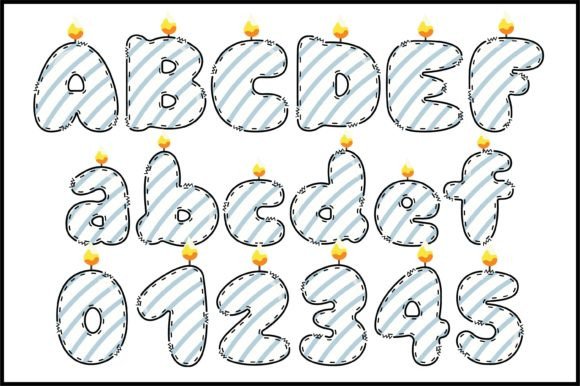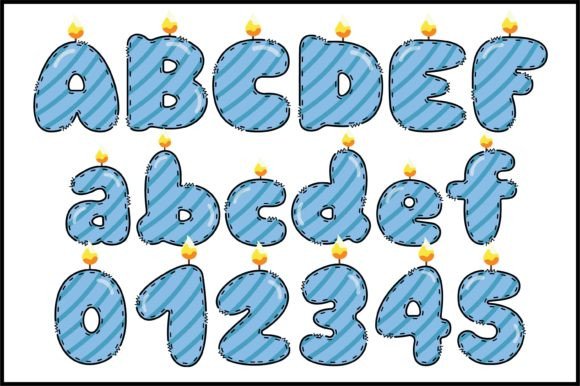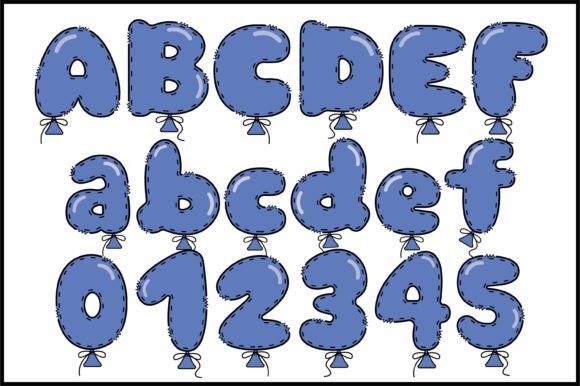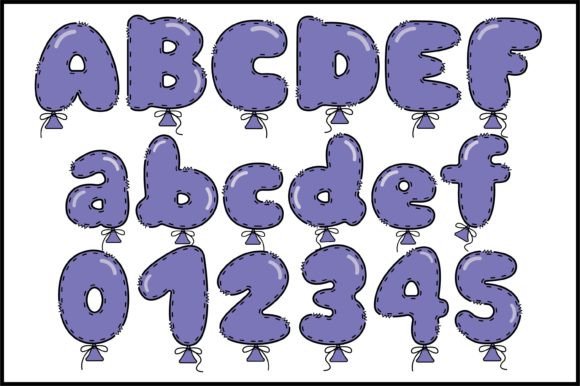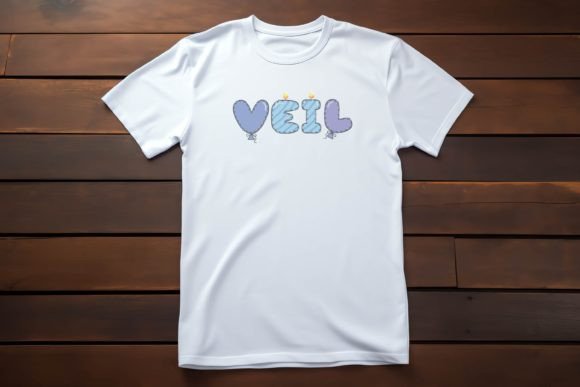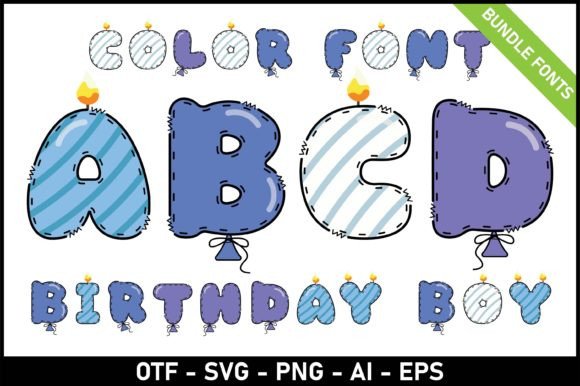
Birthday Boy Font: Adding a Touch of Whimsy to Your Designs
When it comes to creating designs that convey a playful or artistic feel, the right font can make all the difference. One font that has gained popularity in recent years is the Birthday Boy Font. This font is often used in designs that aim to capture the imagination of young audiences, such as children’s books, posters, invitations, greeting cards, and more.
The Characteristics of Birthday Boy Font
Birthday Boy Font is known for its whimsical and playful style, making it perfect for designs that require a touch of fun and creativity. The font features rounded edges, irregular shapes, and a carefree vibe that is sure to capture the attention of young readers. Its unique design elements make it an excellent choice for designs that require a high level of visual appeal.
Uses of Birthday Boy Font
These fonts are often used in designs that aim to convey a playful or artistic feel, such as:
- Children’s books: Whimsical fonts like Birthday Boy Font are perfect for creating engaging and interactive reading experiences for young audiences.
- Posters: Add a touch of fun and creativity to your posters with fonts that are sure to grab attention.
- Invitations: Create memorable invitations for birthday parties, baby showers, and other celebrations with fonts that set the tone for a fun and festive event.
- Greeting cards: Add a personal touch to your greeting cards with fonts that convey a sense of warmth and personality.
Why Choose Birthday Boy Font?
There are several reasons why designers and crafters choose Birthday Boy Font for their projects:
- Playful and artistic feel: The font’s whimsical design elements create a playful and artistic feel that is perfect for designs that require a high level of visual appeal.
- Ease of readability: Despite its playful design, Birthday Boy Font is easy to read, making it perfect for designs that require a high level of legibility.
- Versatility: The font can be used in a variety of designs, from children’s books to posters, invitations, and greeting cards.
Tips for Using Birthday Boy Font
Here are some tips for using Birthday Boy Font in your designs:
- Pair with complementary fonts: Pair Birthday Boy Font with complementary fonts to create visual interest and add depth to your designs.
- Use in moderation: While Birthday Boy Font is perfect for designs that require a playful feel, it’s essential to use it in moderation to avoid overwhelming the reader.
- Experiment with colors: The font’s playful design elements make it perfect for experimenting with different colors and color combinations.
Birthday Boy Font is a versatile and playful font that is perfect for designs that require a touch of whimsy and creativity. Its unique design elements make it an excellent choice for children’s books, posters, invitations, greeting cards, and more. With its ease of readability and versatility, Birthday Boy Font is sure to become a favorite among designers and crafters.